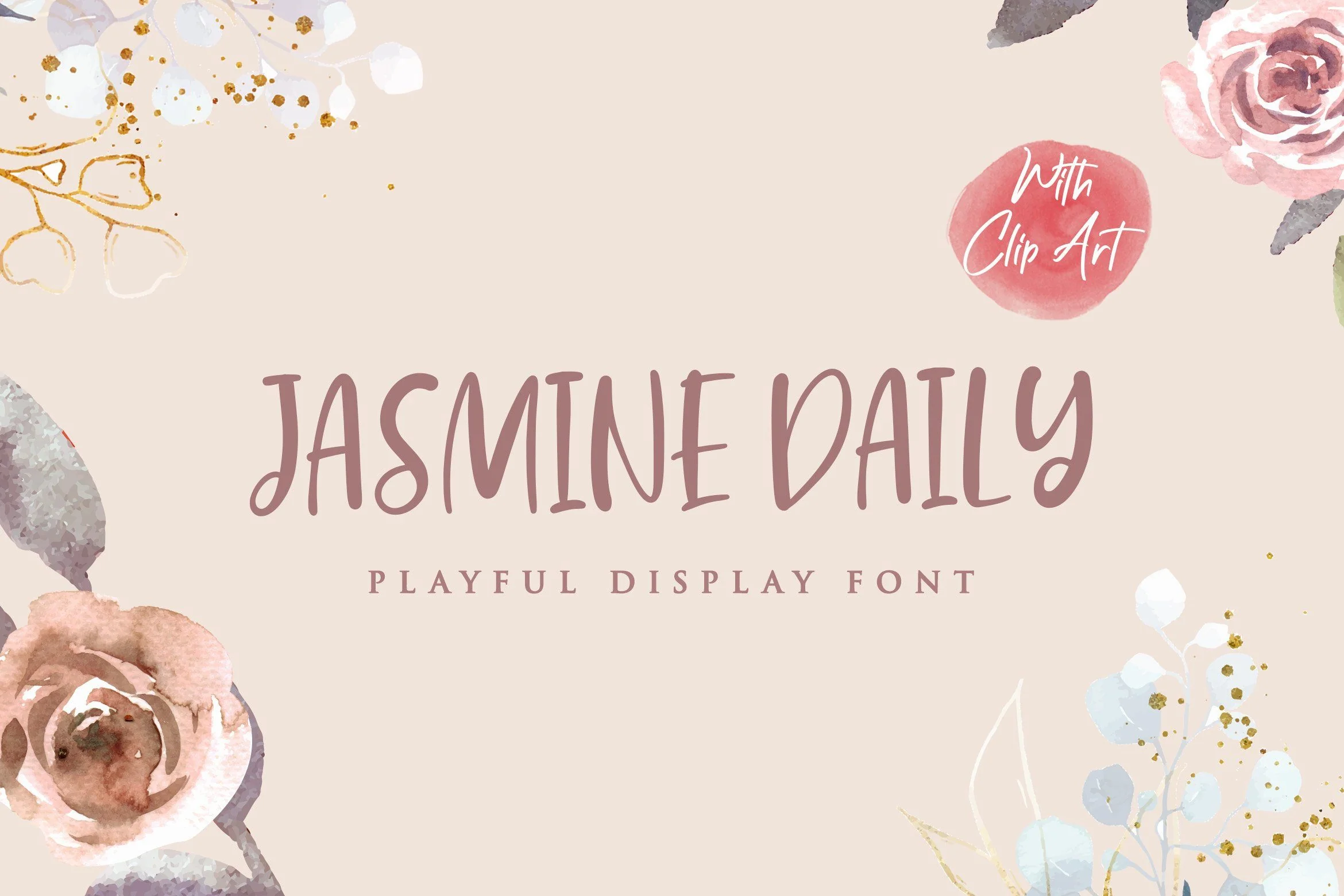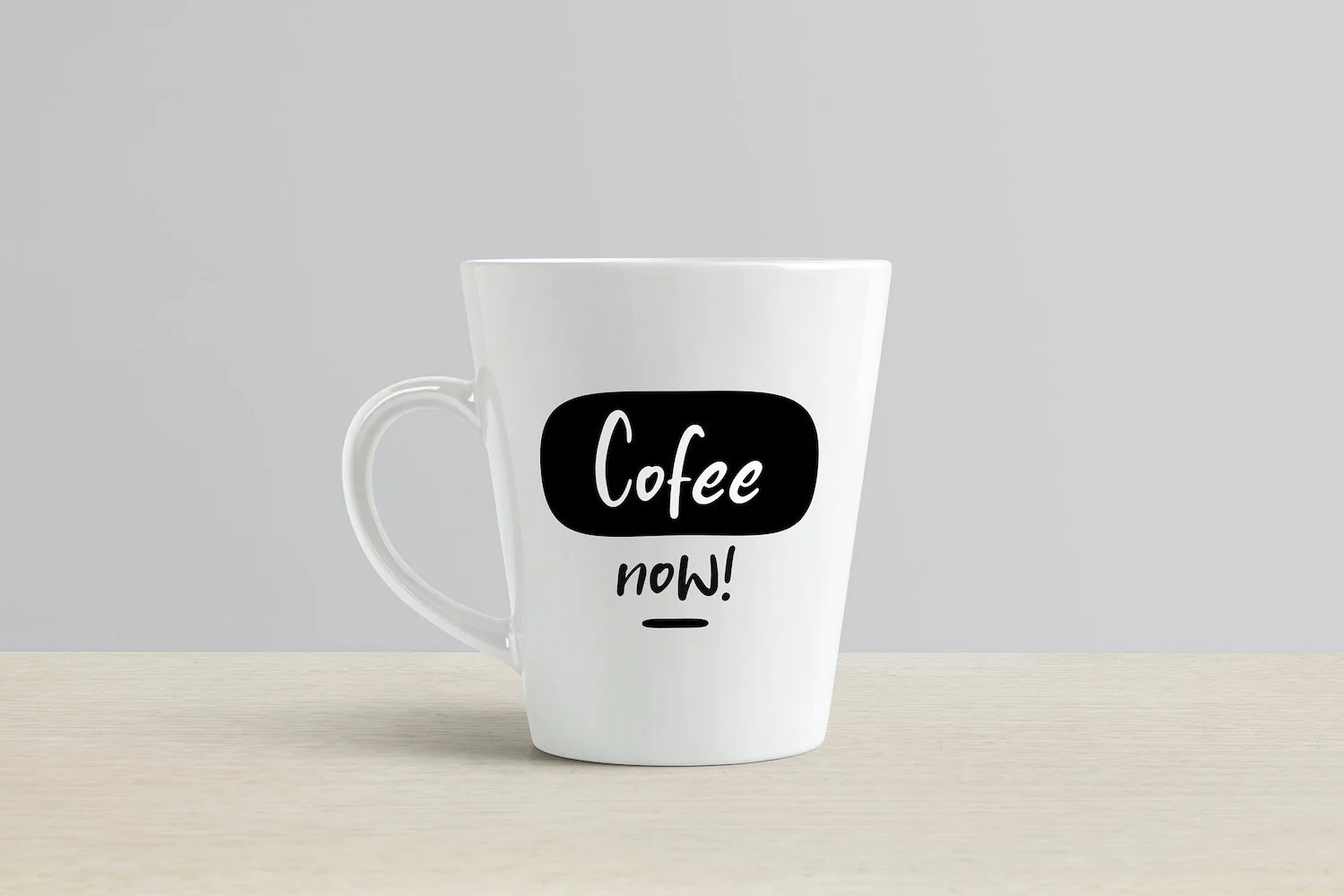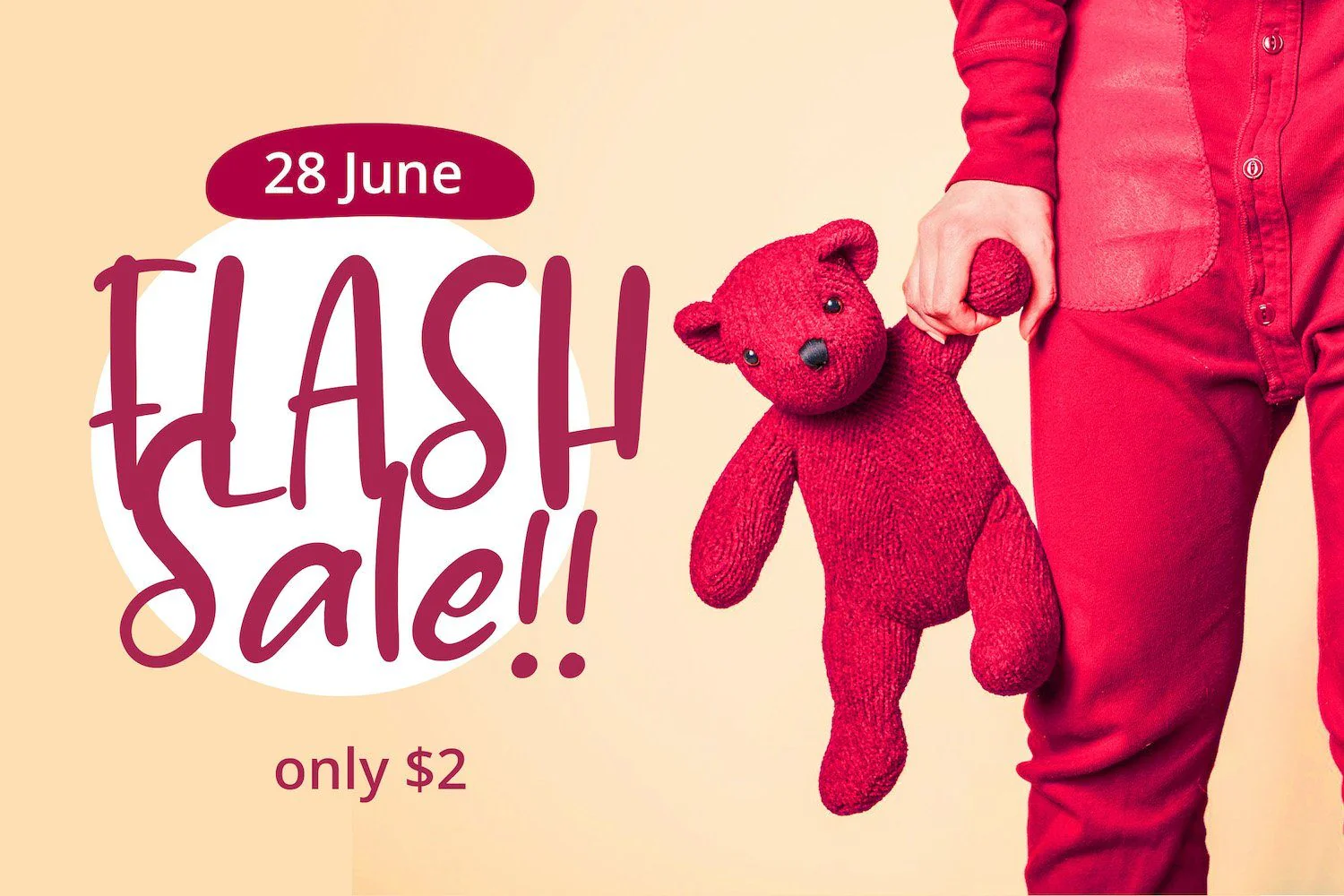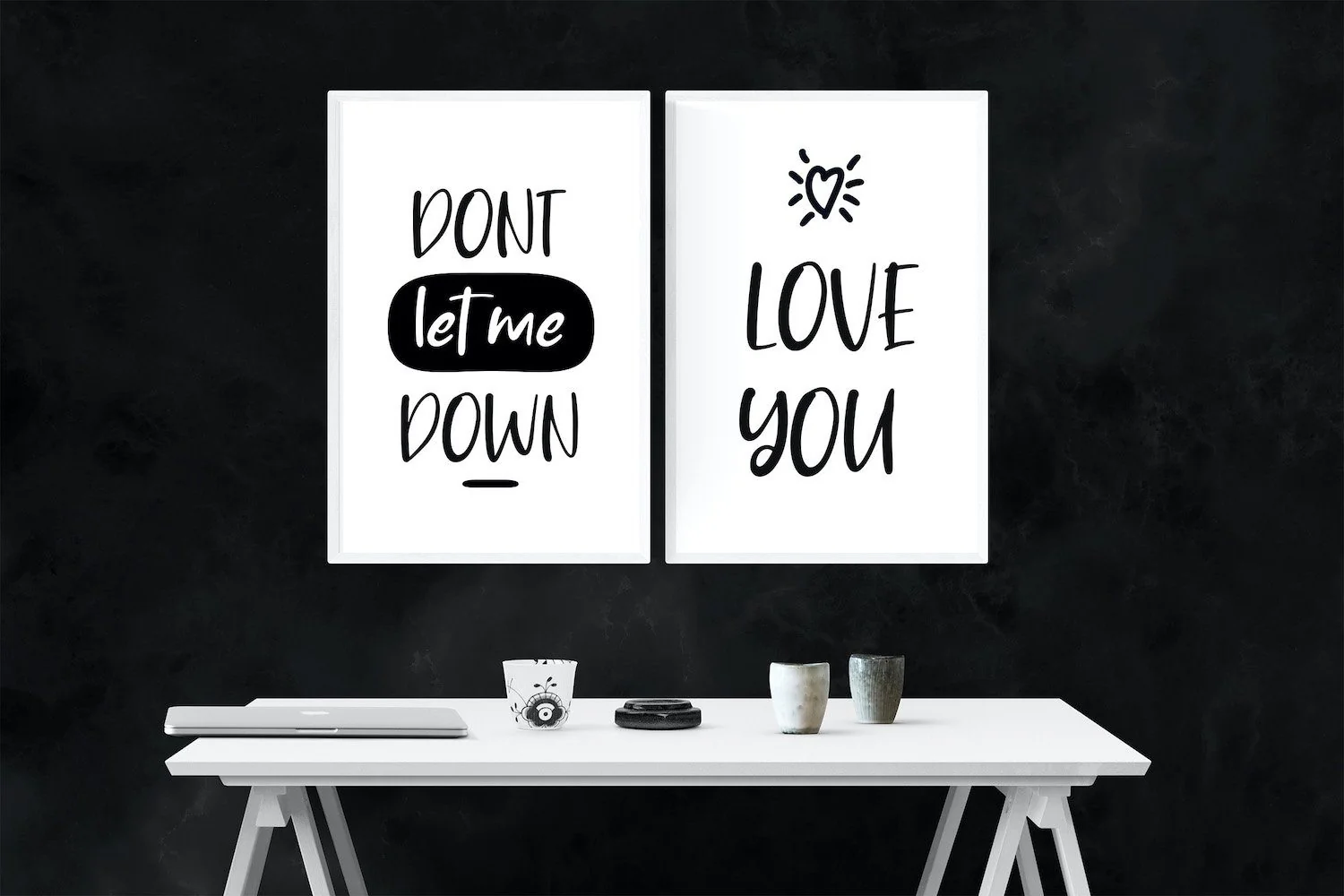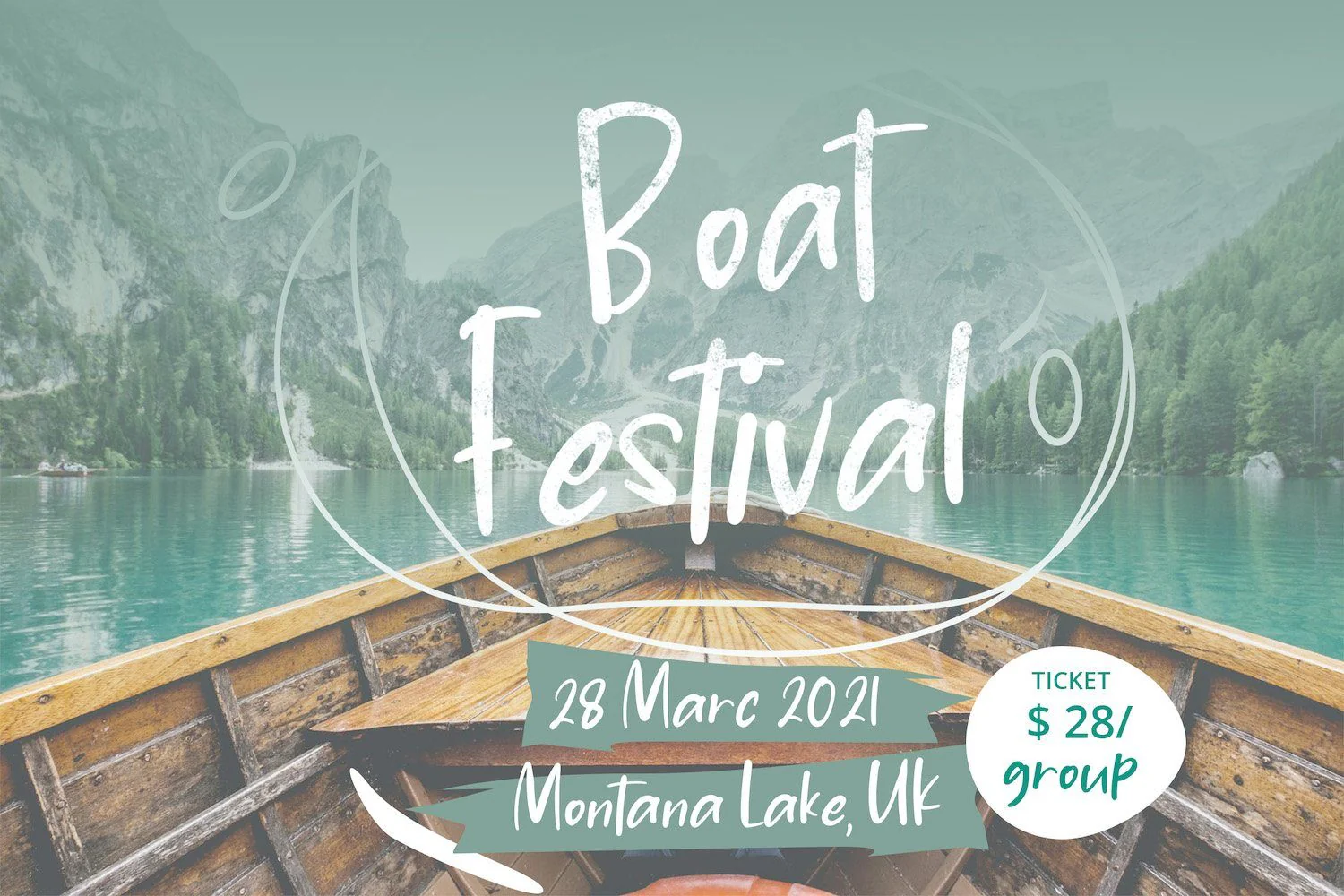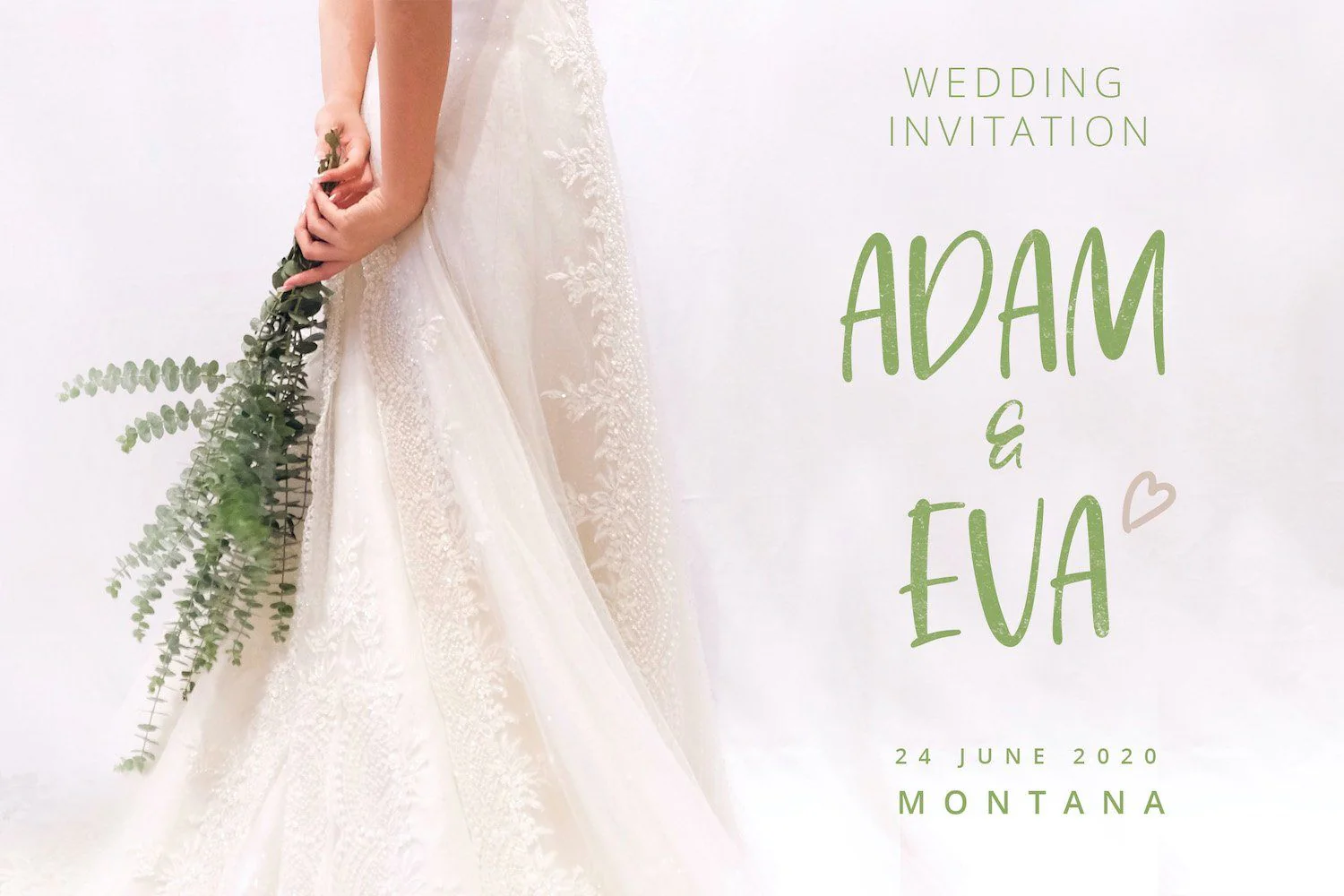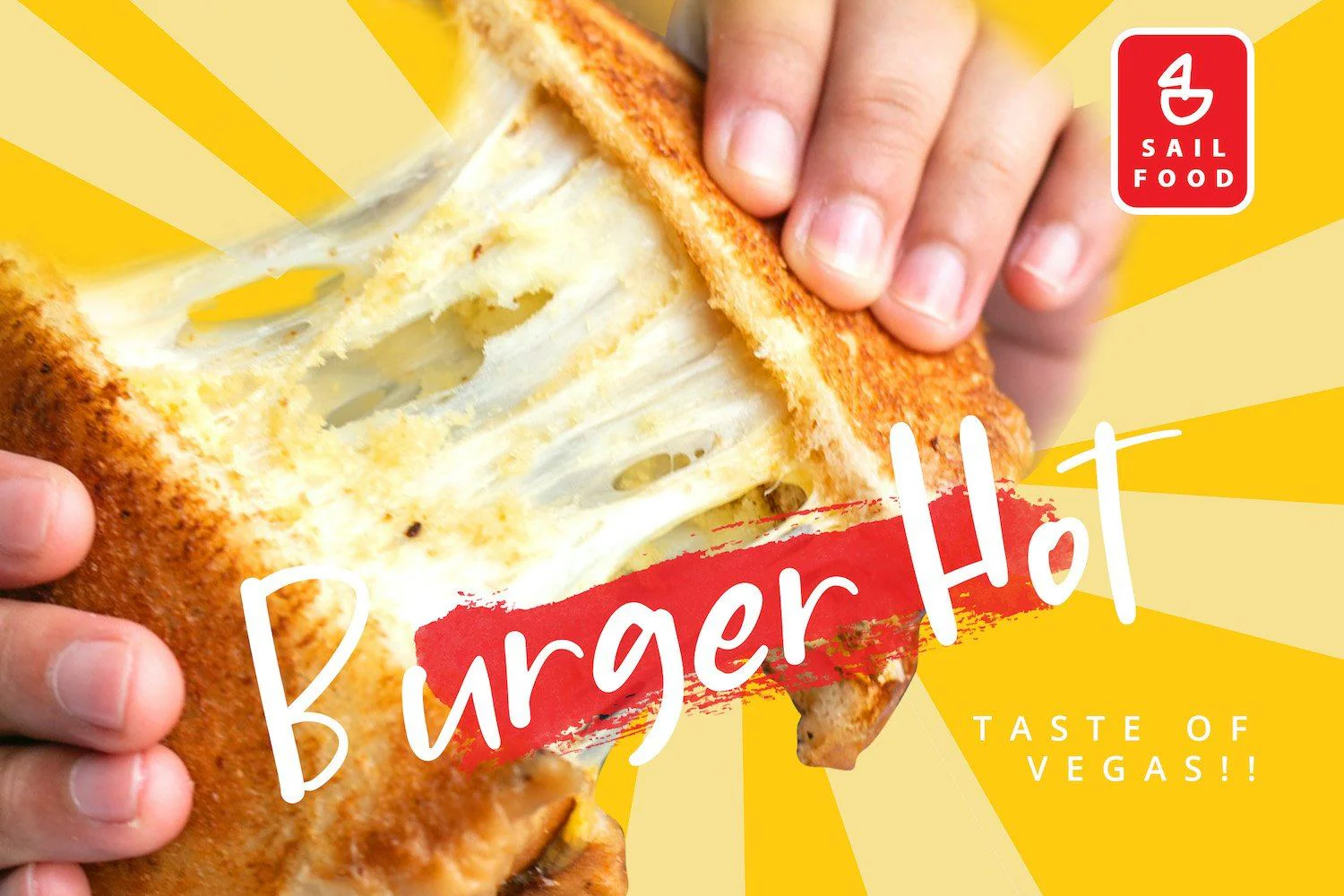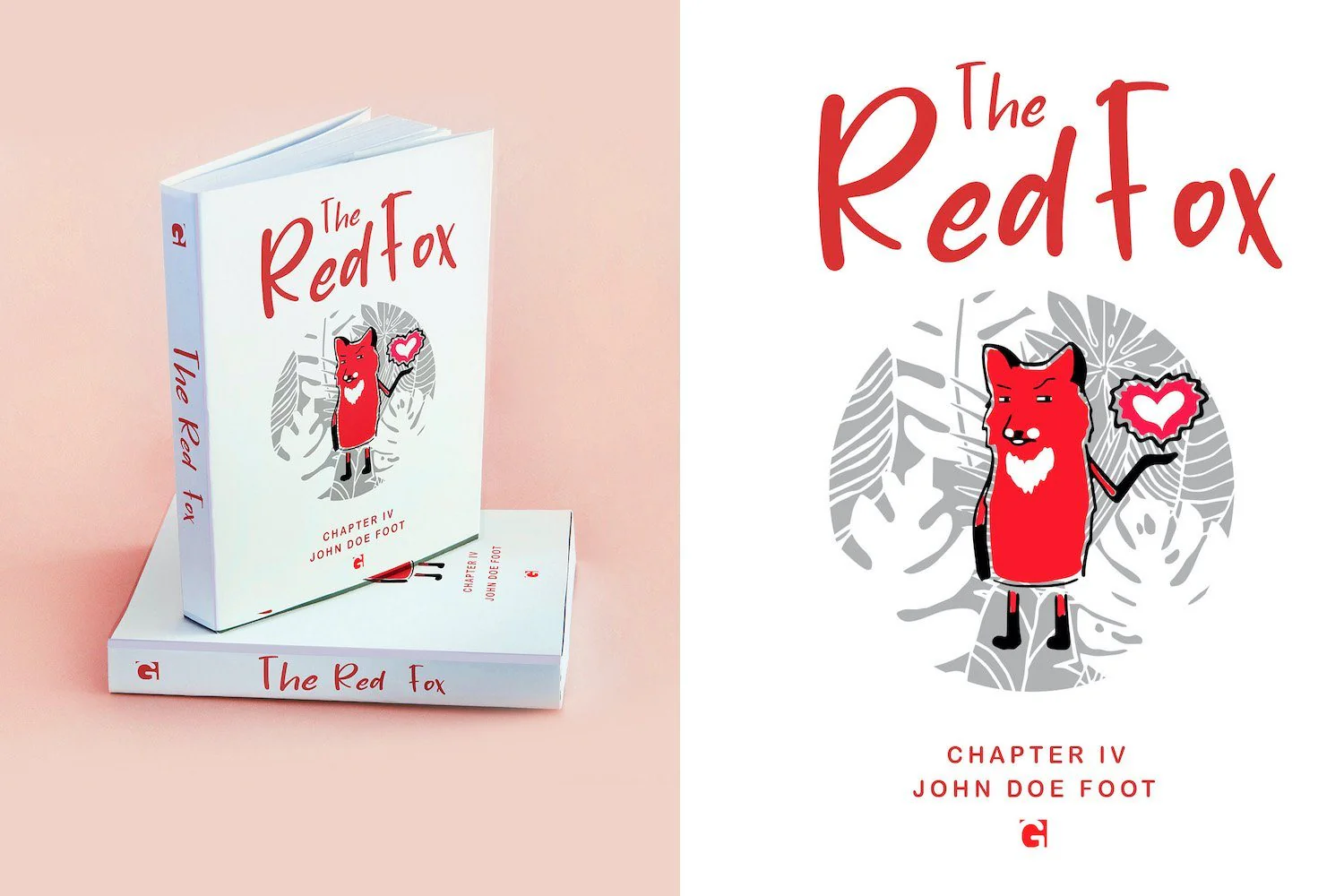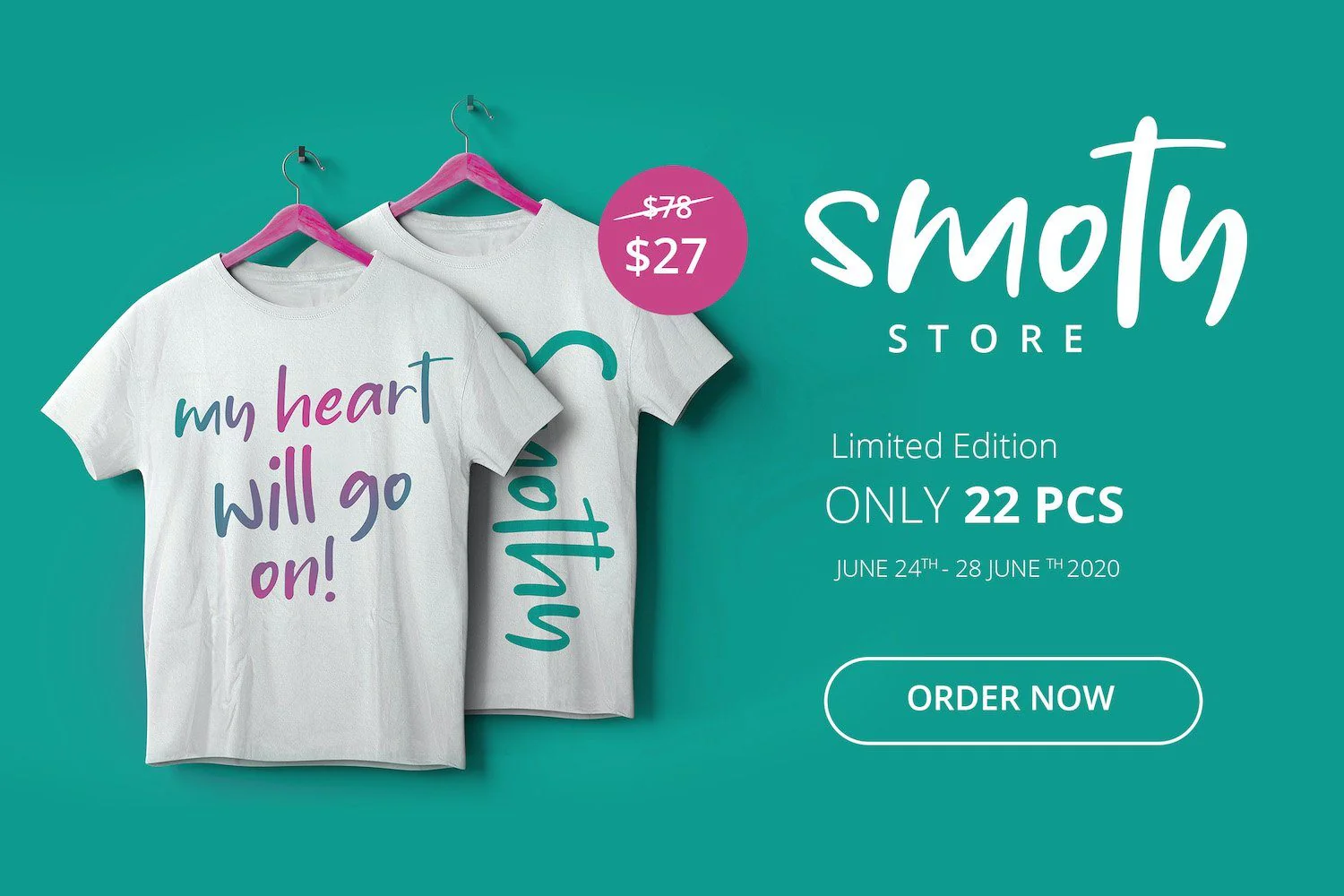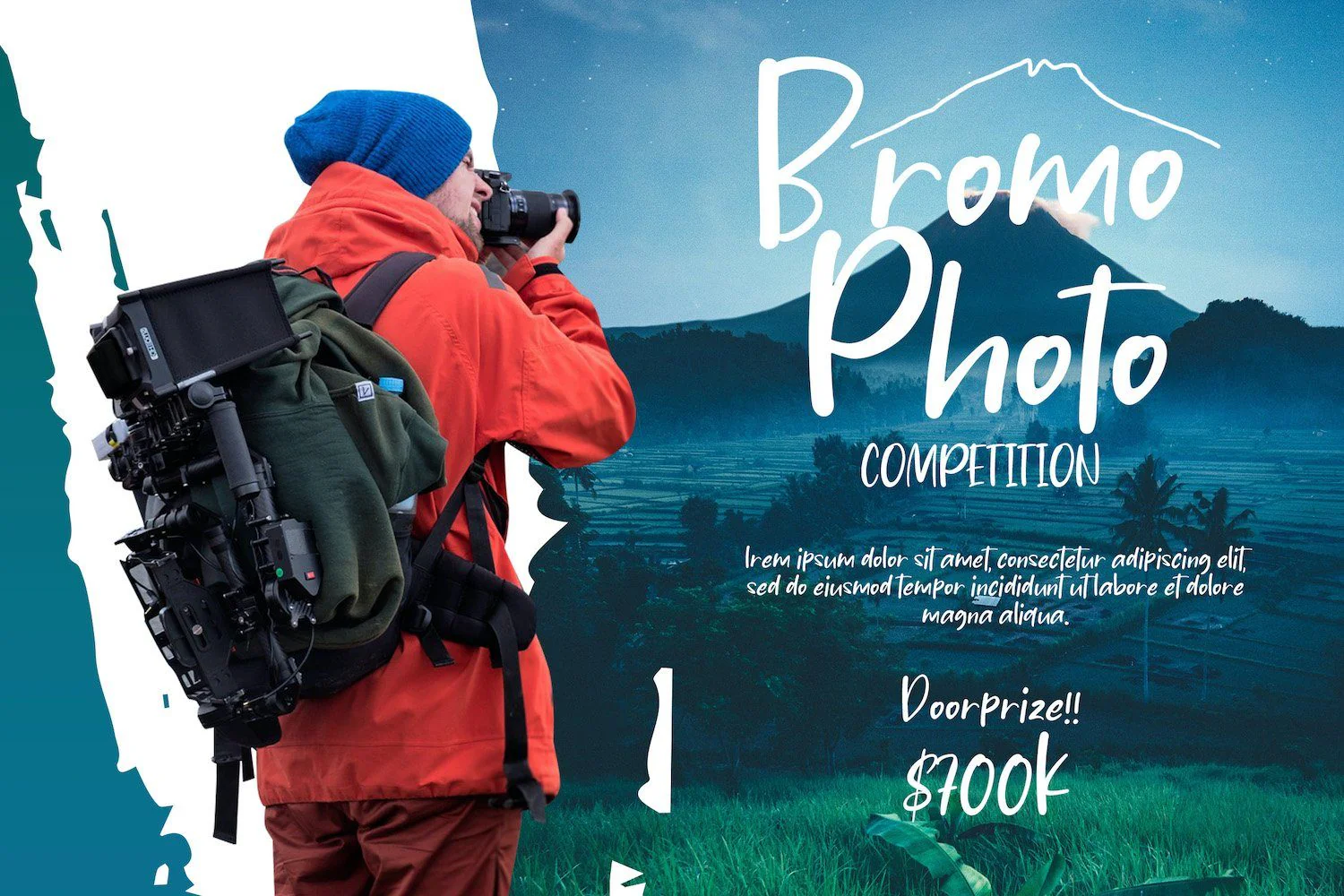
Jasmine Daily - Playful Display Font
Introducing Jasmine Daily - Playful Display Font
Jasmine Daily is a sweet playful display font with elegant style. Fall in love with its dynamic charm, and make this fancy display part of your craft library now. The Jasmine Daily font made with digital brush pen strokes that making this font look authentic.
This Font contains Lovely, Elegant, Creative, Sweet and has a Unique Concept.
- Stylistic Set 1
- Stylistic Set 2